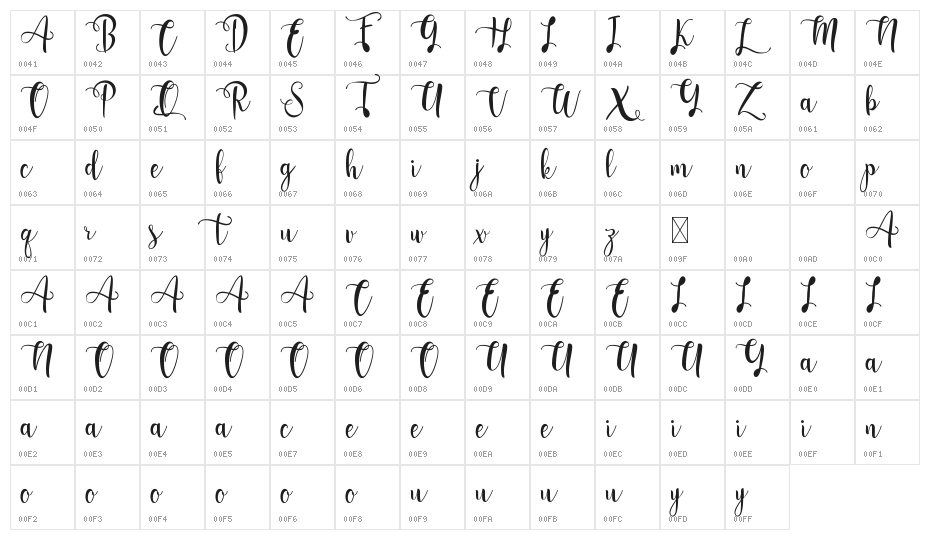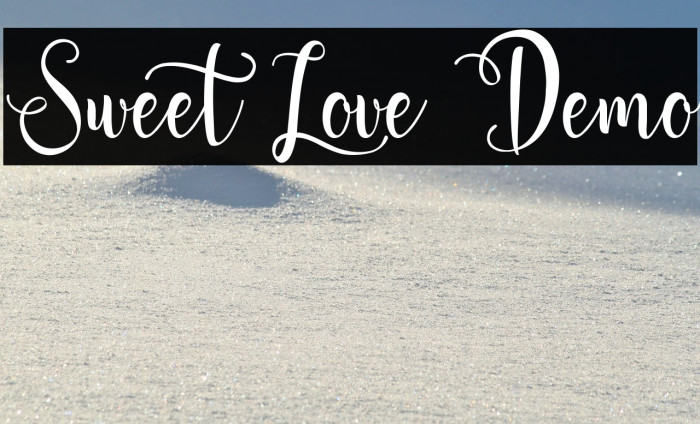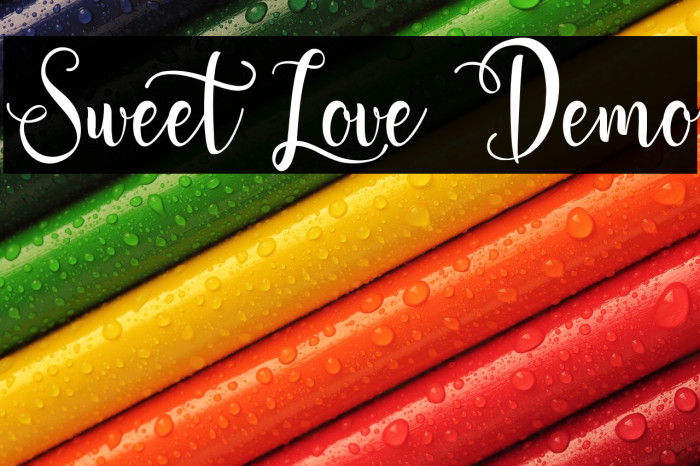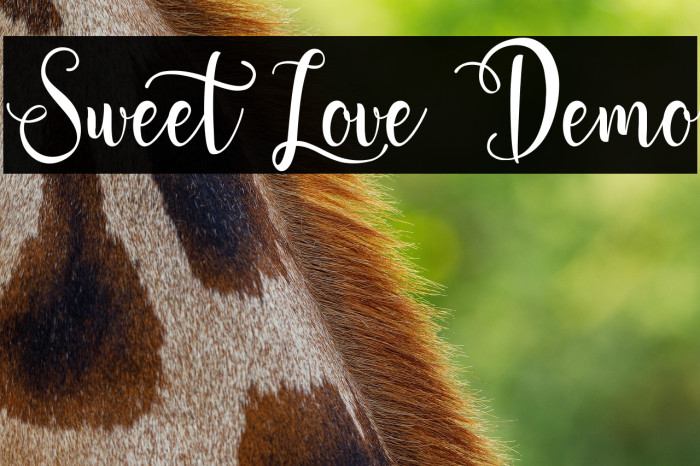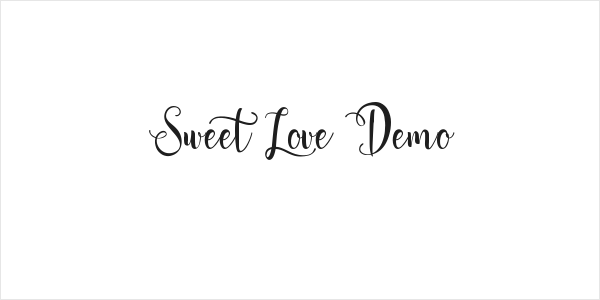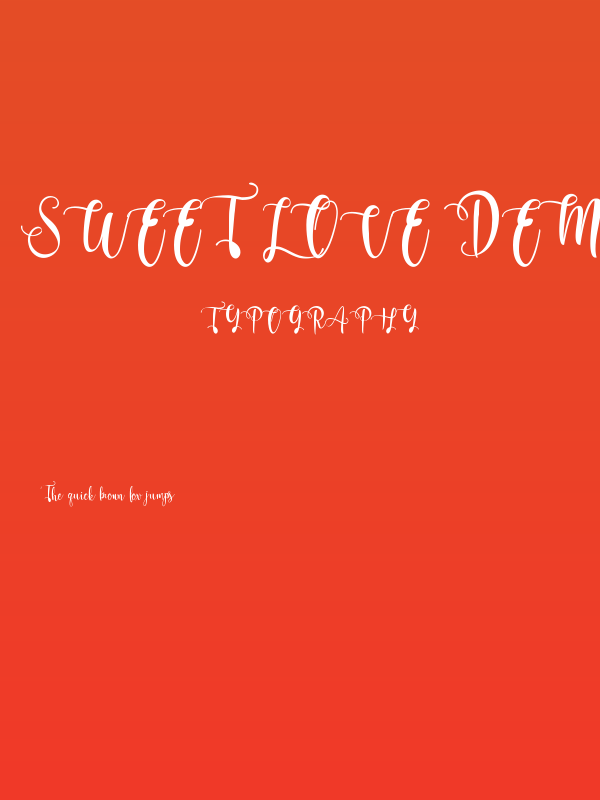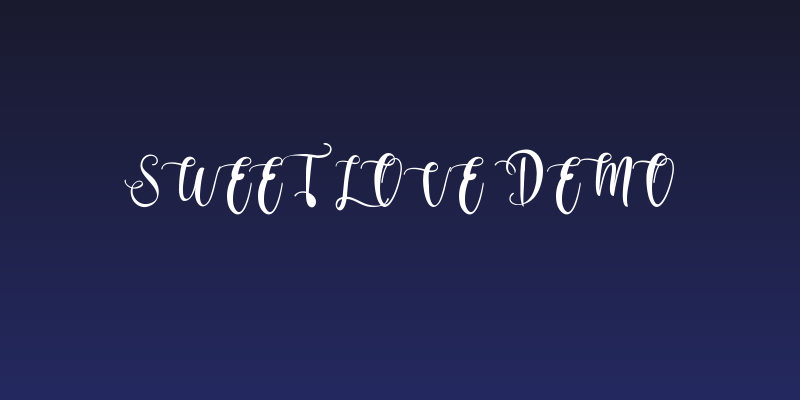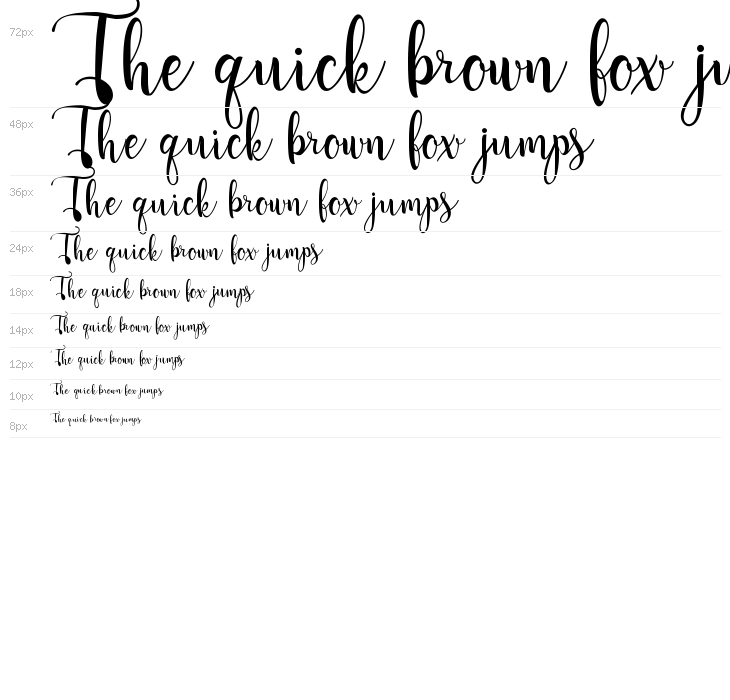
Sweet Love Demo Font
Sweet Love Demo Description
This font features an elegant and flowing script style, characterized by its ornate and decorative swashes. The uppercase letters are particularly elaborate, with intricate loops and flourishes that give a sense of movement and grace. The lowercase letters maintain a consistent style, with smooth curves and a slightly playful touch. The numbers and special characters are designed to match the overall aesthetic, making this font suitable for creating visually appealing and cohesive designs. Its artistic flair makes it ideal for projects that require a touch of sophistication and creativity.
| Proposed Projects | Ideal for wedding invitations, greeting cards, branding, and decorative projects. |